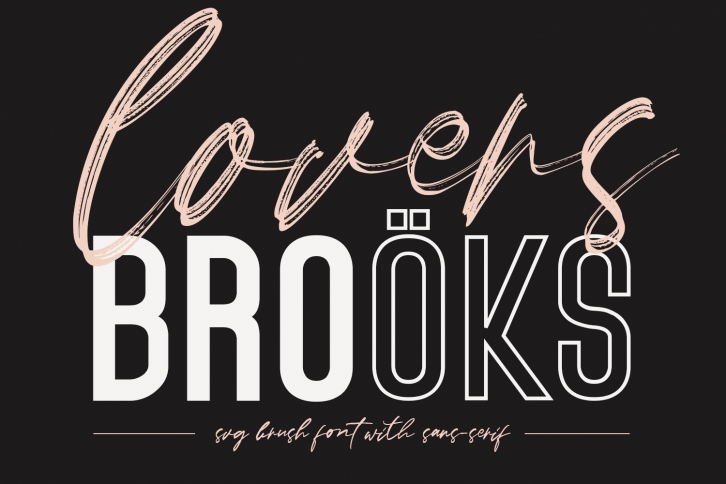
Lovers Brooks SVG Brush Sans is a trendy and unique font with an authentic style. It was designed by Maulana Creative and it's a great choice for creative people who need such a font. It was released on March 15, 2020 and the file size is 7.33 MB. Lovers Brooks SVG Brush Sans will add an organic vibe to any design idea!